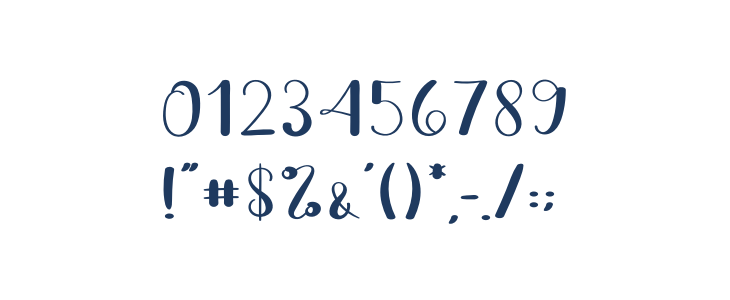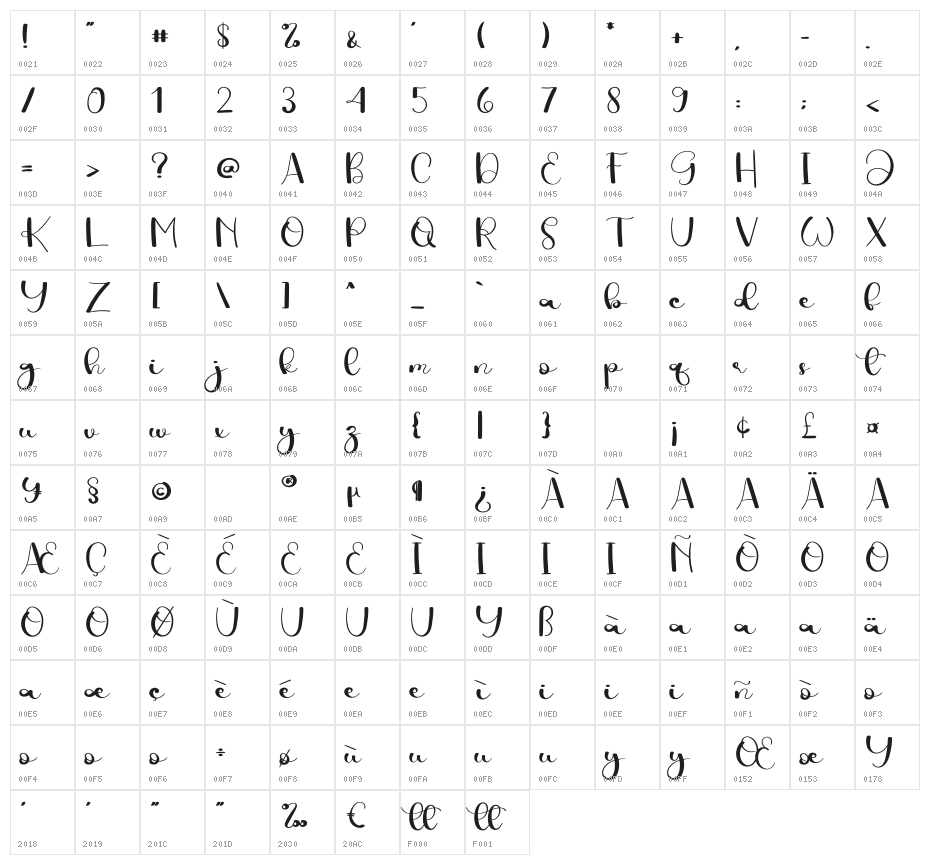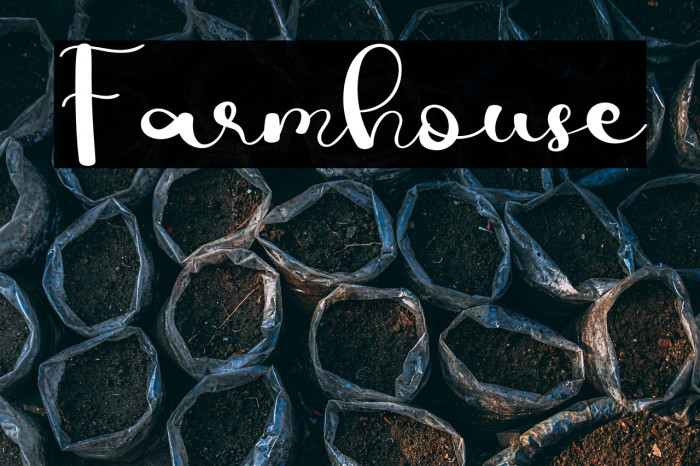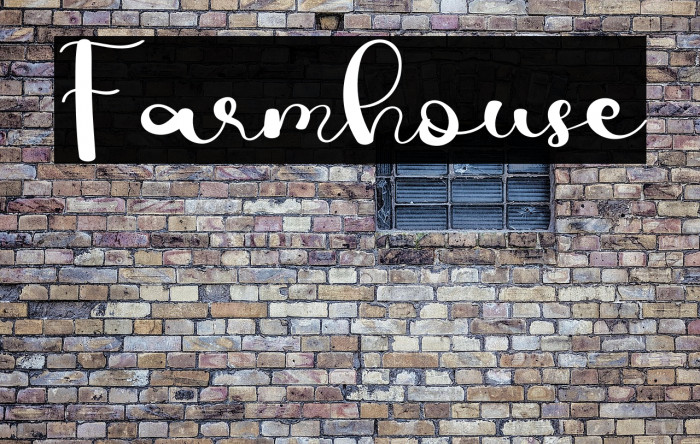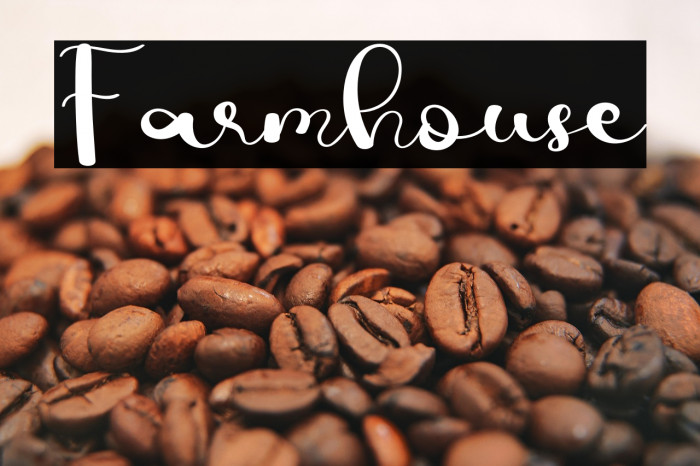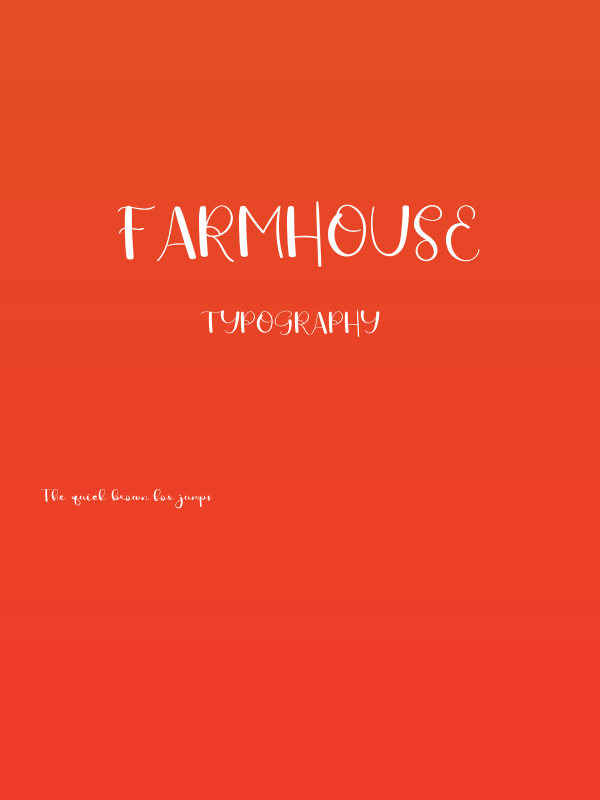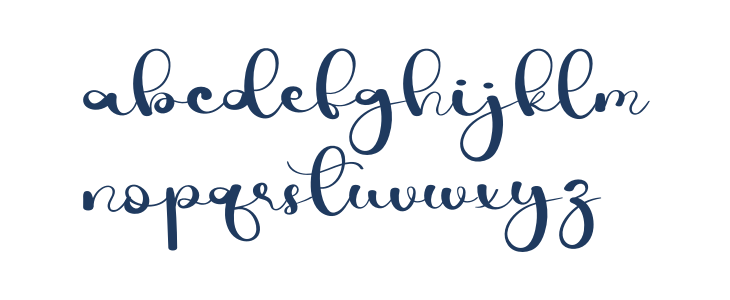
Farmhouse Font
Farmhouse Description
This font features a charming and whimsical style, characterized by its flowing, cursive-like letters that evoke a sense of playfulness and creativity. The uppercase letters have a unique flair with some strokes extending beyond the baseline, while the lowercase letters exhibit a smooth, connected script style. The numbers are bold and slightly rounded, maintaining the playful aesthetic. Special characters are designed with a similar whimsical touch, making them blend seamlessly with the rest of the font. This font's overall appearance is both inviting and expressive, suitable for projects that require a personal and artistic touch.
| Use Case | Logos, Invitations, Greeting Cards |
| Proposed Projects | Ideal for wedding invitations, greeting cards, branding projects, and any design that requires a personal, artistic touch. |